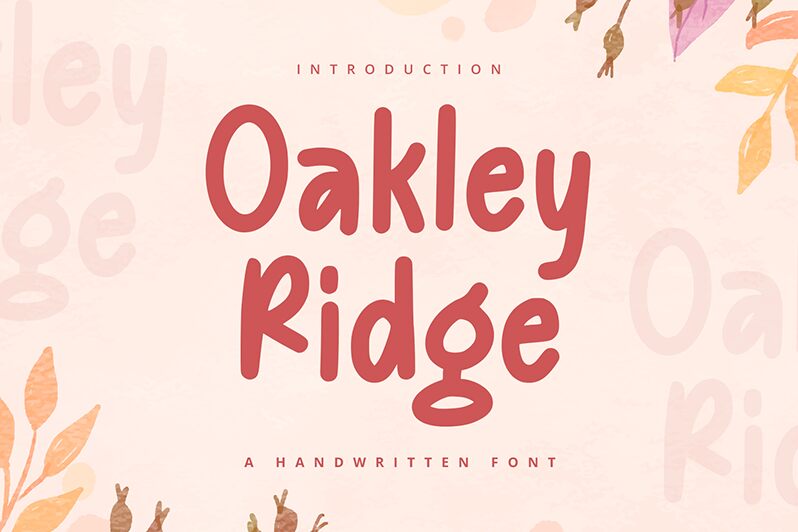
Oakley Ridge
Oakley Ridge font is a fun predictable handwriting typeface with a modern vibe from Alpaprana Studio. It combines simplicity and verve to deliver a cleanly curved collection of letters which communicate friendliness and elegance. If the phrase ‘less is more’ was ever right, it sure describes this font as the essential elements bring you beauty and legibility all at once.
The many appropriate users for this free handwritten font include advertising headlines, poster designs, book titles, CD album covers, event branding, greeting cards. Oakley Ridge is also suitable for labels on packages as well as product category indicators inside e-commerce websites or applications.